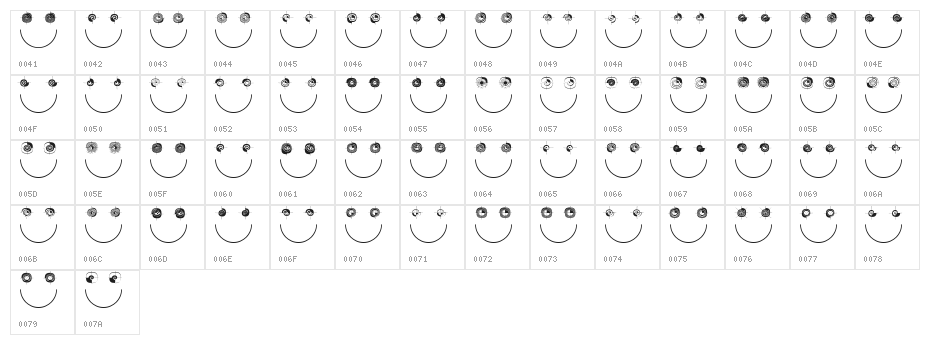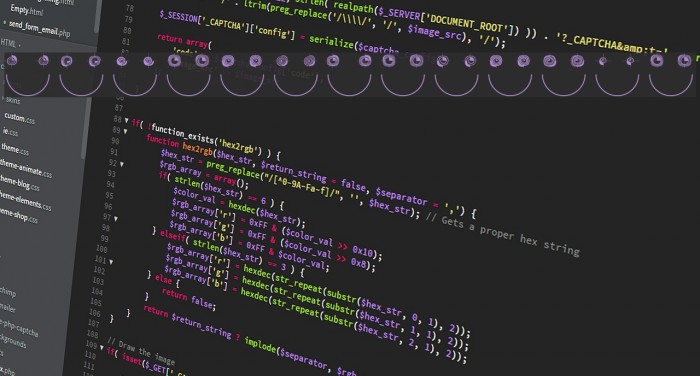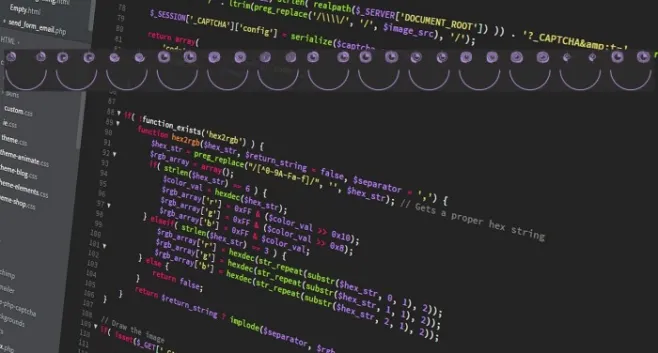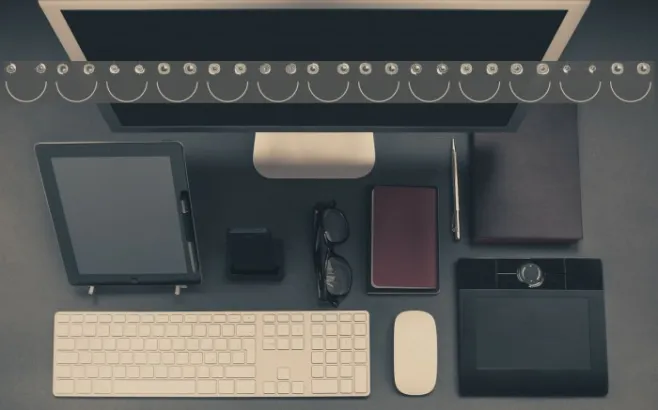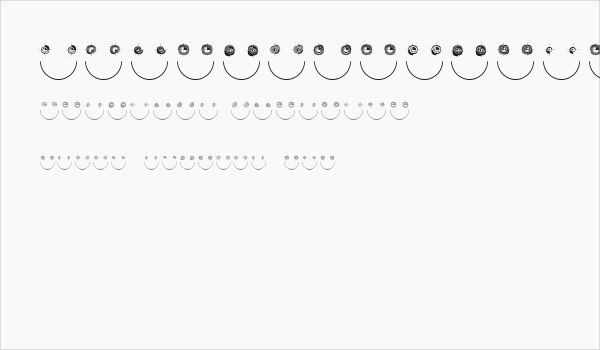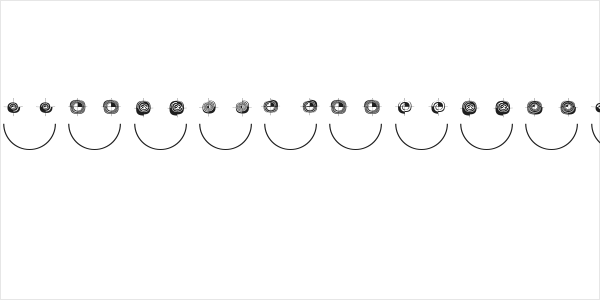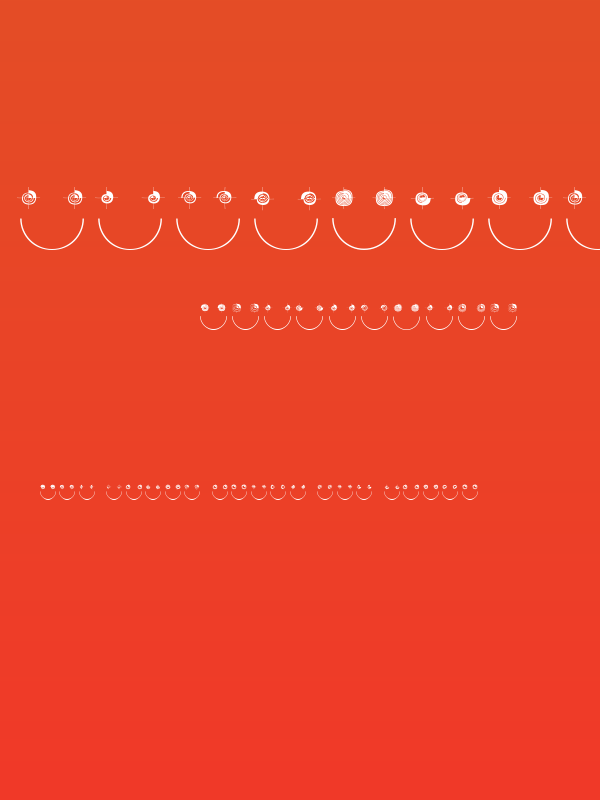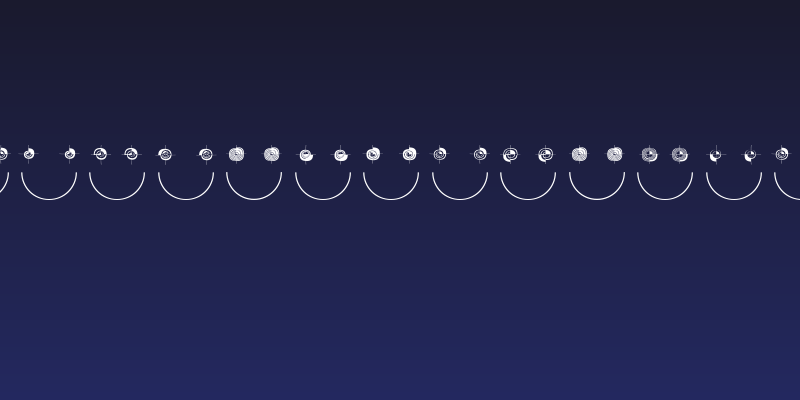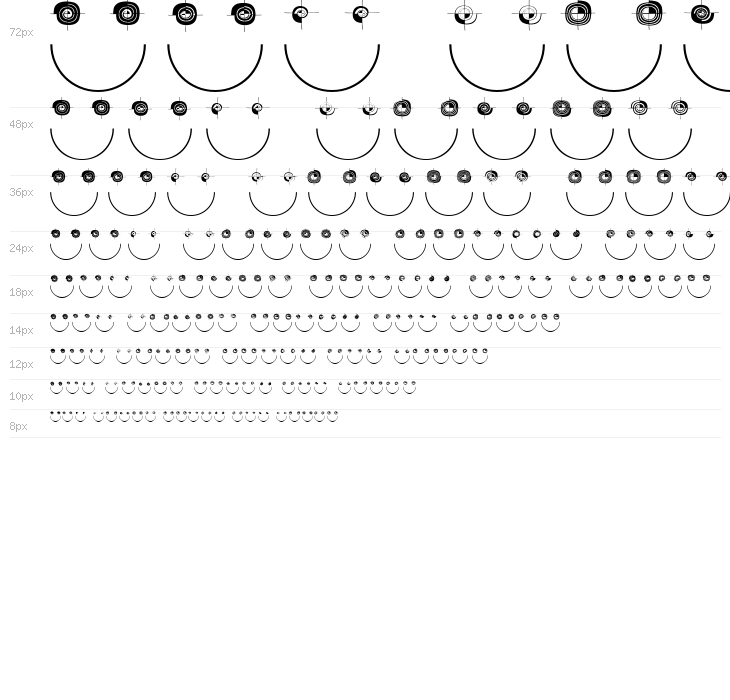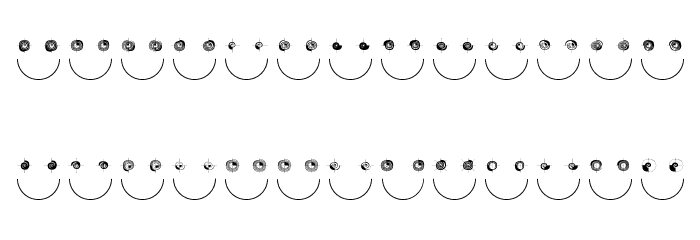
SpiralusFaces Font
SpiralusFaces Description
This is not a valid font. The image contains spiral designs that resemble faces, arranged in rows. Each character is represented by a unique spiral pattern with varying levels of detail and shading, creating an artistic and abstract visual effect. These designs do not correspond to traditional alphanumeric characters or symbols typically found in fonts.
Overall StyleArtistic, Abstract
Use CaseArtistic projects, Decorative elements
Proposed ProjectsThese designs could be used for artistic projects, abstract art pieces, or decorative elements.